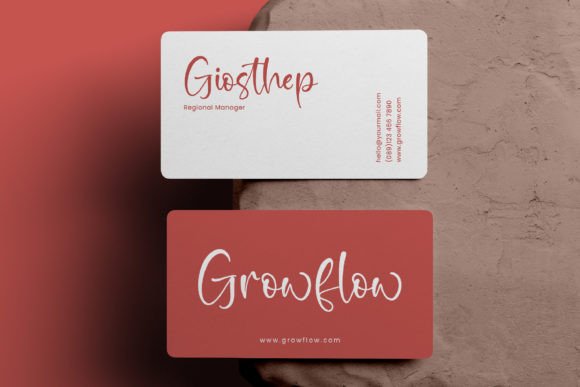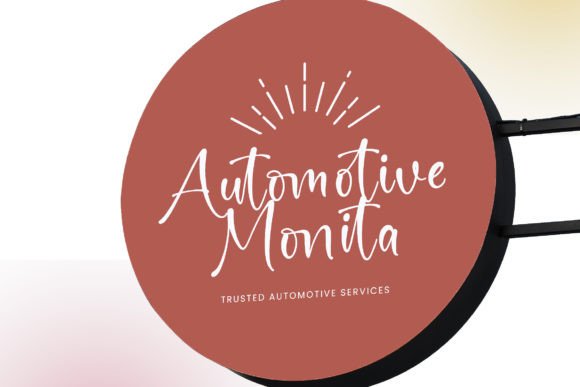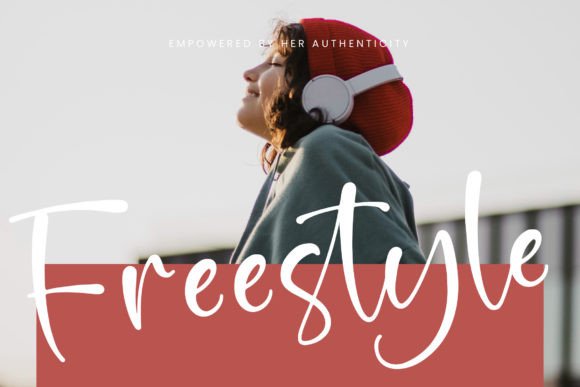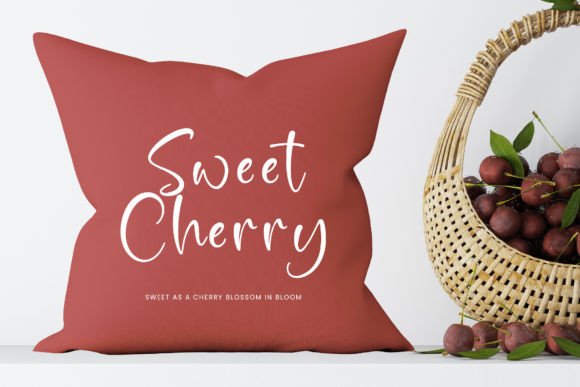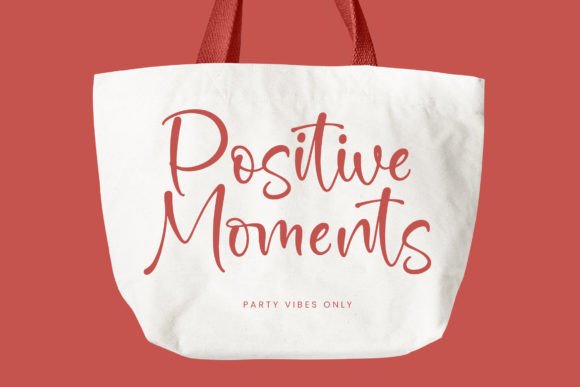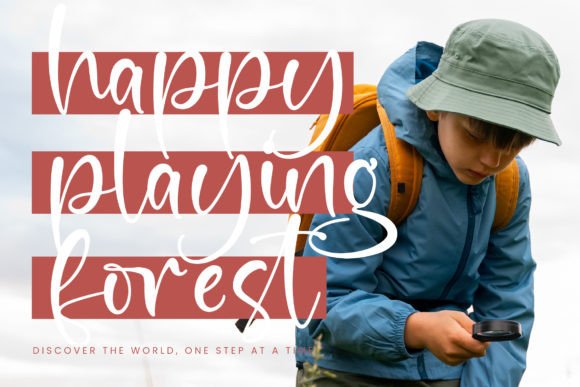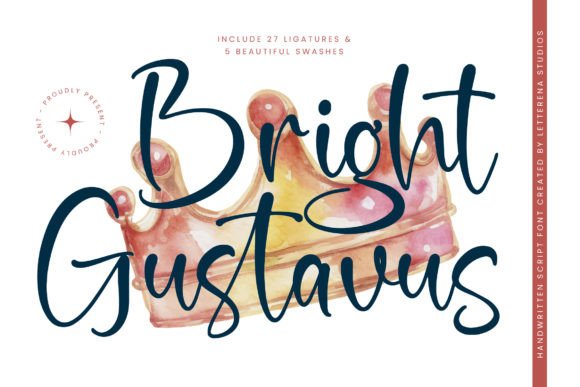
Introducing Bright Gustavus: The Ultimate Luxury Script Font
Are you a designer or crafter looking for a font that exudes luxury and sophistication? Look no further than Bright Gustavus, a stunning handwritten script font from Letterena. This beautiful font is perfect for a wide range of projects, from logos and branding to homeware designs, product packaging, and more.
What is Bright Gustavus?
Bright Gustavus is a luxury script font that boasts a unique, handwritten aesthetic. Its elegant and refined design makes it ideal for projects that require a touch of sophistication and glamour. With its flowing lines and intricate details, this font is sure to elevate your designs to the next level.
What Can I Use Bright Gustavus For?
The versatility of Bright Gustavus is one of its standout features. This font can be used for a wide range of projects, including:
- Logos and branding projects: Create a lasting impression with a custom logo that showcases your brand’s personality and style.
- Homeware designs: Add a touch of luxury to your home decor with custom designs that feature Bright Gustavus.
- Product packaging: Make your products stand out on store shelves with eye-catching packaging that incorporates this beautiful font.
- Mugs, quotes, posters, shopping bags, t-shirts, and more: The possibilities are endless with Bright Gustavus.
- Book covers, name cards, invitation cards, greeting cards, and labels: Add a touch of elegance to your stationery and publishing projects.
- Photography and watermark: Use Bright Gustavus to add a professional touch to your photos and protect your work with a custom watermark.
- Special events: Create stunning invitations, programs, and other materials for weddings, galas, and other special occasions.
Why Choose Bright Gustavus?
So why should you choose Bright Gustavus for your next project? Here are just a few reasons:
- Luxury aesthetic: Bright Gustavus boasts a sophisticated, high-end design that’s sure to impress.
- Versatility: This font can be used for a wide range of projects, from logos and branding to homeware designs and more.
- Elegant and refined: Bright Gustavus features flowing lines and intricate details that add a touch of elegance to any design.
- Easy to read: Despite its ornate design, Bright Gustavus is easy to read, making it perfect for body text and headlines.
Tips for Using Bright Gustavus
To get the most out of Bright Gustavus, here are a few tips to keep in mind:
- Use it sparingly: While Bright Gustavus is a beautiful font, it can be overwhelming if used excessively. Use it sparingly to add a touch of luxury to your designs.
- Pair it with a sans-serif font: For body text, consider pairing Bright Gustavus with a clean sans-serif font to create visual interest and contrast.
- Experiment with colors: Bright Gustavus looks stunning in a range of colors, from metallic gold and silver to rich jewel tones.